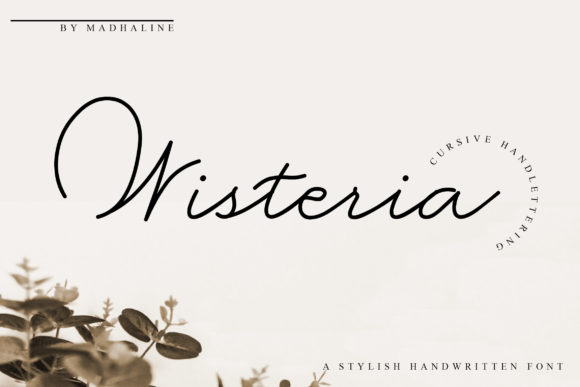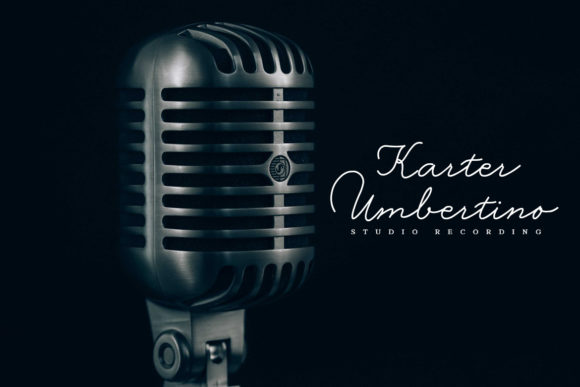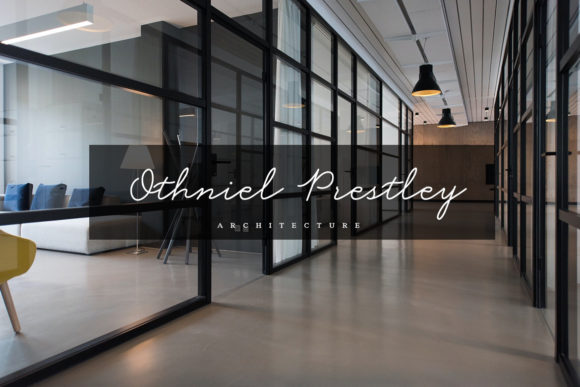
About Wisteria Font
Wisteria is a beautiful and stylish script font. It would be perfect for photography, watermark, social media posts, advertisements, logos & branding, invitation, product designs, label, stationery, wedding designs, product packaging, special events or anything that needs a handwriting taste.